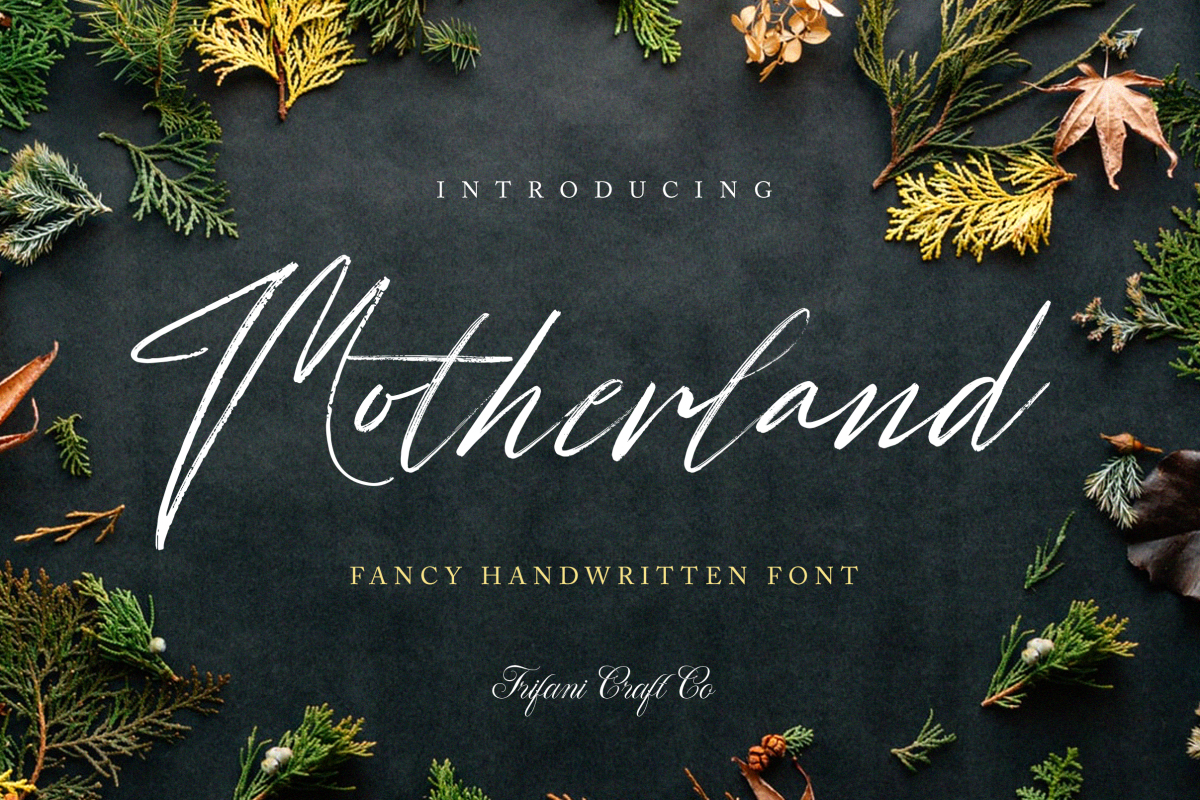
Motherland
MotherlandScript-Regular
Introducing the authentic handwritten font from Trifani & Co. An authentic & organic hand-drawn script font with a personal charm now come to life. This brush script that is written casually and quickly.
It's charming, authentic and has relaxed characteristics. Perfectly fit for handwritten quotes, signature-style logos, stylish branding projects, and hand-crafted product & stationery designs.